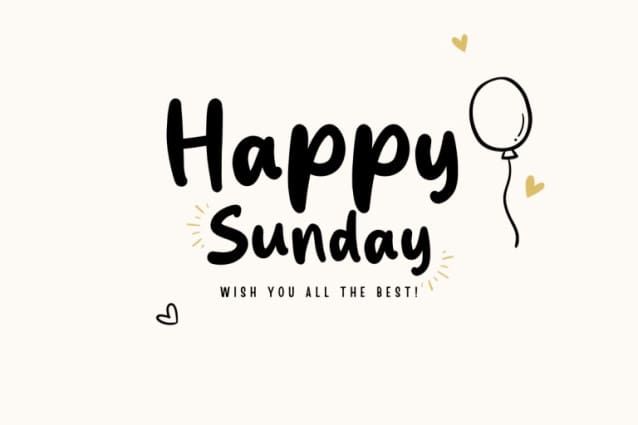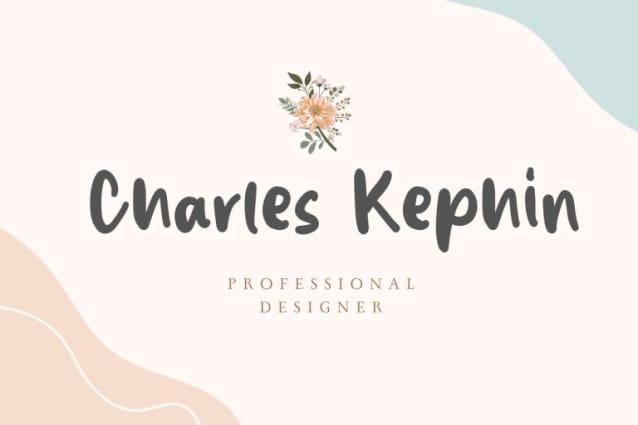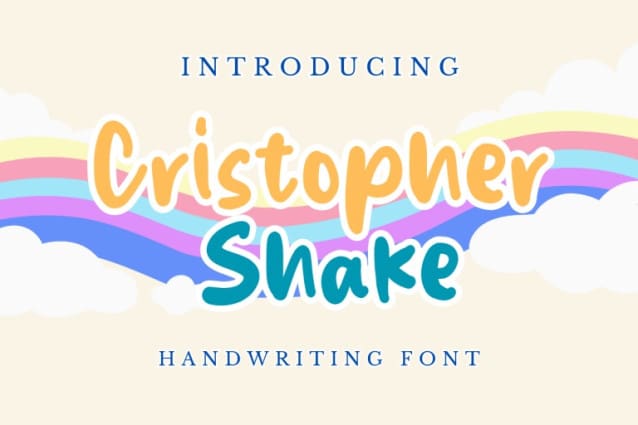
Cristopher Shake Font
Cristopher Shake Font, a unique creation born from the elegance of handcrafted strokes. With an artful touch, each character exhibits a natural and distinctive quality that adds a truly authentic charm to your design projects.
Cristopher Shake Font is the perfect choice for those who seek a blend of individuality and style. Whether it’s for branding, logo design, magazine layouts, quotes, or any other creative endeavor, this font brings a touch of genuine craftsmanship to your work.